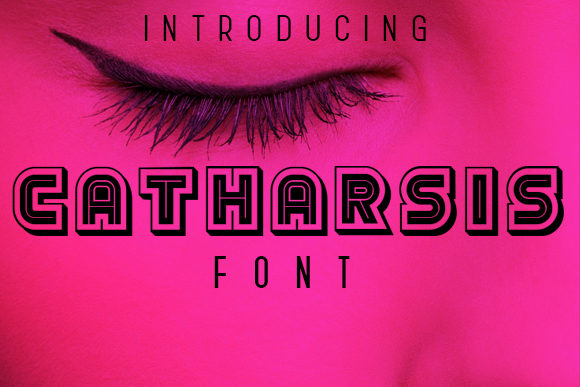
Attention all creative visionaries, typography enthusiasts, and 3D printing mavens! Introducing Catharsis, the display font that will ignite your imagination and elevate your designs to new heights.
Inspired by the raw energy of abstract shapes, Catharsis is a font that defies convention and embraces individuality. Its bold lines and captivating curves dance across the page, creating a visual spectacle that will leave an unforgettable impression.
Unleash your creativity with Catharsis and witness the transformation of your words into captivating masterpieces. Its unique character adds a touch of authenticity to your designs, making them stand out from the crowd.
But Catharsis isn't just a pretty face; it's also a practical choice for 3D printing enthusiasts. Its carefully crafted structure ensures crisp and precise output, bringing your digital creations to life with stunning detail.
Embrace the power of Catharsis and let your designs speak volumes. Whether you're crafting eye-catching posters, designing innovative packaging, or creating unforgettable 3D models, this font is your ultimate creative companion.